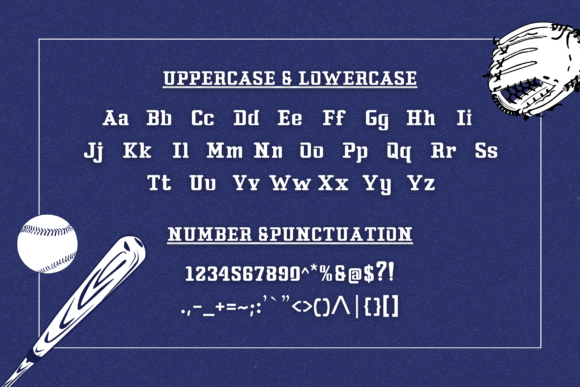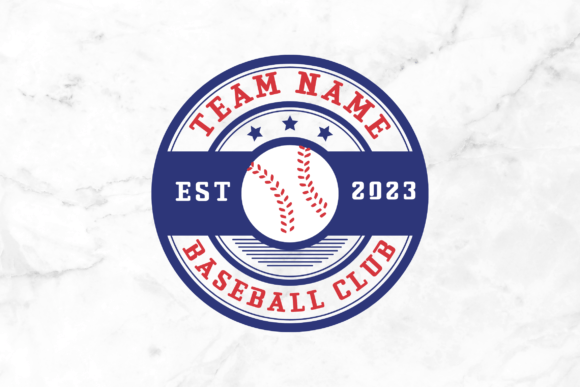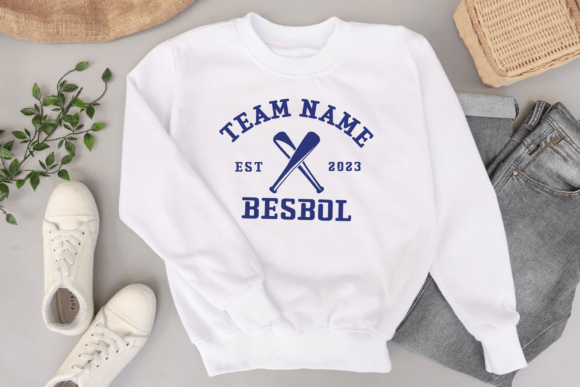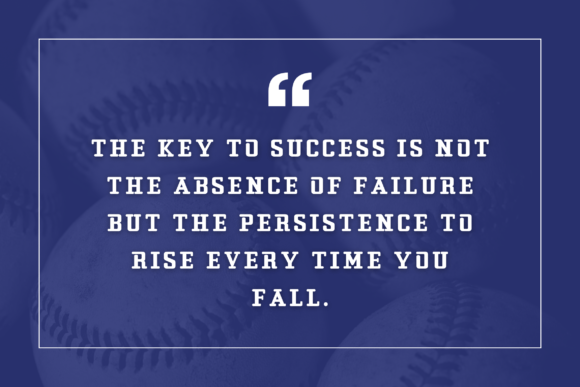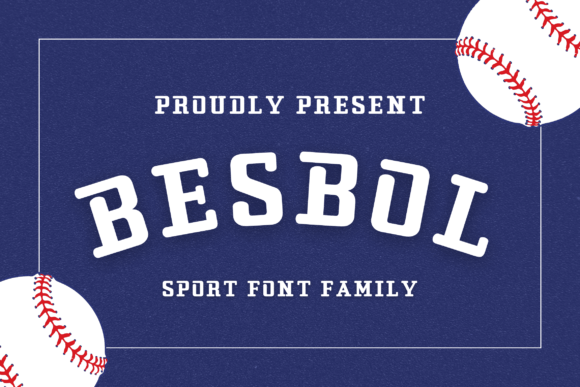
Besbol Font: A Modern Classic with a Slab Serif Twist
When it comes to typography, the right font can make all the difference in the success of a design project. For designers and crafters looking for a font that exudes both modernity and classic charm, Besbol Font is an excellent choice. Characterized by its slab serif design, Besbol Font brings a unique blend of simplicity, approachability, and attractiveness to the table.
What is Besbol Font?
Besbol Font is a type of slab serif font, which means it features small, rectangular serifs at the end of each stroke. This style of font is known for its sturdy and dependable feel, making it perfect for a wide range of applications, from digital media to print materials. Besbol Font takes this classic style and infuses it with a modern twist, resulting in a letter design that is both timeless and contemporary.
Key Characteristics of Besbol Font
• Slab Serif Design: The defining feature of Besbol Font is its slab serif design. This gives the font its distinctive look and feel, setting it apart from other serif and sans-serif fonts.
• Modern and Classic Letter Design: Besbol Font strikes a perfect balance between modernity and classic appeal. Its letterforms are designed to be clean and straightforward, yet they carry a certain elegance that makes them suitable for high-end projects.
• Simple yet Attractive: The simplicity of Besbol Font is one of its strongest assets. It has an uncluttered look that makes it easy to read and understand, while its attractive design ensures that it stands out in any context.
• Approachable and Friendly: The overall feel of Besbol Font is approachable and friendly. This makes it an excellent choice for projects where a welcoming and inviting tone is desired.
Uses of Besbol Font
The versatility of Besbol Font is one of its most appealing qualities. Its unique blend of modernity and classic charm makes it suitable for a wide range of projects, including:
• Branding and Logo Design: For businesses looking for a font that conveys professionalism and approachability, Besbol Font is an excellent choice.
• Digital Media: Whether it’s for a website, social media post, or digital advertisement, Besbol Font’s clarity and readability make it perfect for digital media.
• Print Materials: From brochures and flyers to posters and business cards, Besbol Font’s classic appeal and modern twist make it a great choice for any print material.
• Crafting and DIY Projects: For crafters and DIY enthusiasts, Besbol Font can add a professional touch to handmade cards, scrapbooking, and other craft projects.
Why Choose Besbol Font?
There are several reasons why designers and crafters might choose Besbol Font for their projects:
• Unique Style: Besbol Font offers a unique style that sets it apart from more common fonts. Its slab serif design and modern/classic blend make it a standout choice.
• Versatility: The font’s versatility means it can be used in a wide range of projects, from digital media to print materials and crafting.
• Readability: Besbol Font’s clean and simple design ensures that it is highly readable, making it suitable for both headings and body text.
• Aesthetic Appeal: The attractive design of Besbol Font adds an aesthetic appeal to any project, making it more engaging and visually appealing.
Besbol Font is a valuable addition to any designer’s or crafter’s toolkit. Its slab serif design, modern and classic letterforms, and simple yet attractive feel make it a friendly and appealing choice for a wide range of projects. Whether you’re working on a branding project, creating digital content, or crafting handmade materials, Besbol Font offers a unique blend of style, versatility, and readability that can’t be beat.